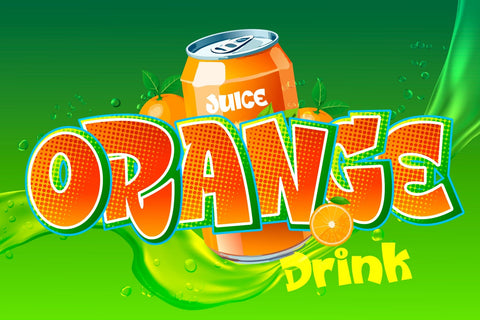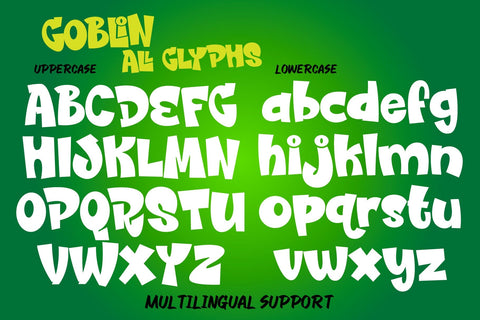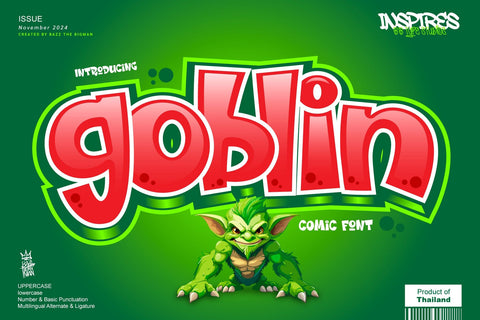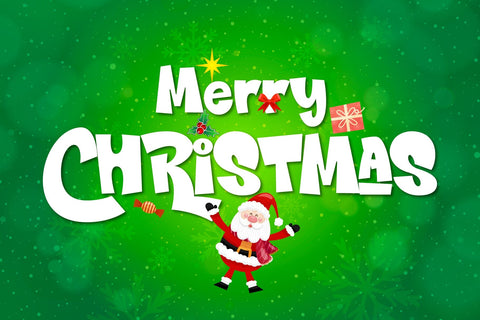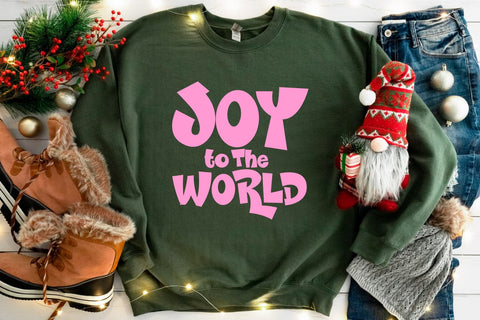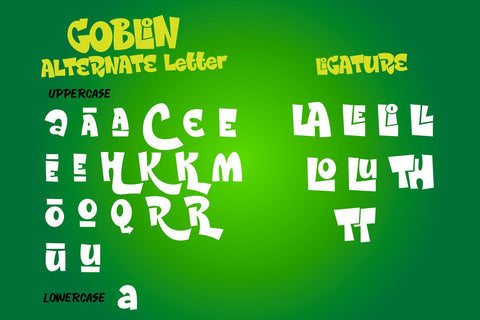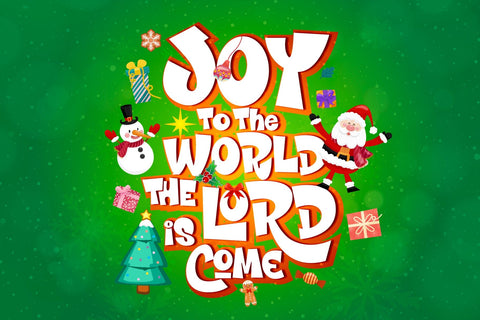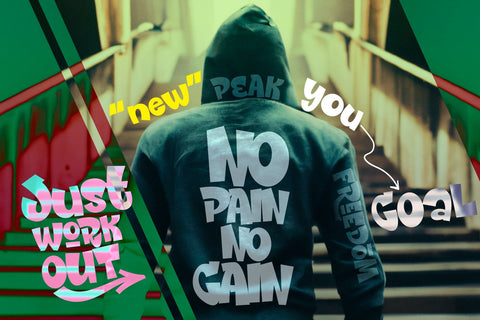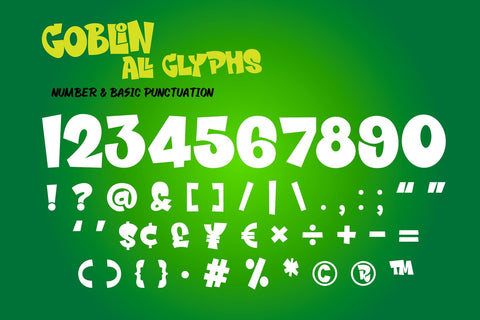
Goblin
Unleash the charm of your creative projects with Goblin, an extraordinarily distinctive and playful font that promises to inject life into your creative endeavors. Imbued with an expertly developed design, this font aims to up the ante of your creative game, transforming even the simplest ideas into standout pieces. It’s an apt choice for various designs, from t-shirt artistry and athletic gear branding to captivating logos, attention-grabbing advertisements, and product packaging. Whatever your design ideology may be, Goblin can infuse an element of playfulness and creativity to help your projects shine brighter.